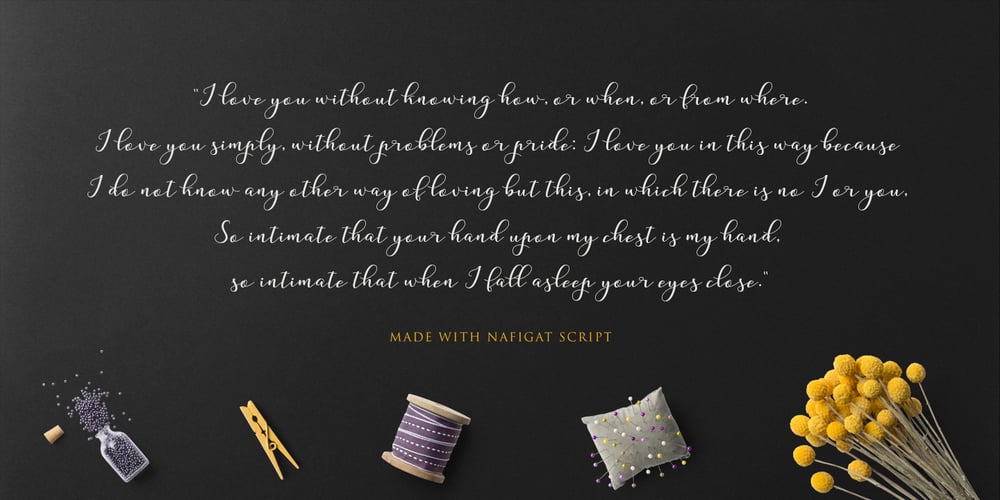
Nafigat Script Font Family was designed by T. Marjan Bahraini and published by stiplinestudios. Nafigat Script contains 1 styles and family package options. Nafigat Script goes with Romantic and Modern Calligraphy, ready to give your design project with Fresh and Fabulous Style. This font have an 264 Standard Glyph + 408 Glyph Alternate in Open Type Standard Format. Perfect for wedding, branding and romantic invitation and Also Suitable for various purpose such as digital lettering, headings, logos, wedding invitation, t-shirt, letterhead, signage, lable, news, posters, badges, branding materials, t-shirt, print, business cards, quotes, logo, poster, and suitable for any graphic design project. Nafigat Script comes as a single font file packed full of great features. It contains a full set of lower & uppercase letters, a large range of punctuation, numerals, and multilingual support. The font also contains several swashes and stylistic alternates for those who have open type capable software (e.g. Photoshop/Illustrator).